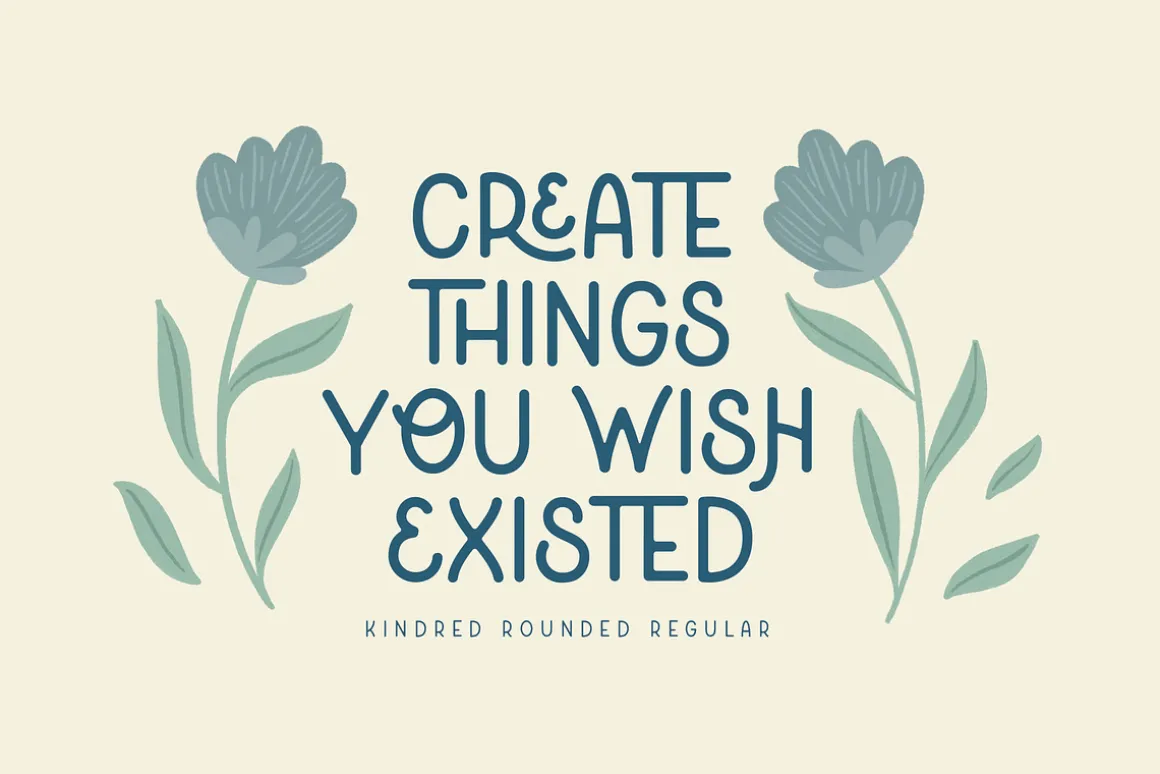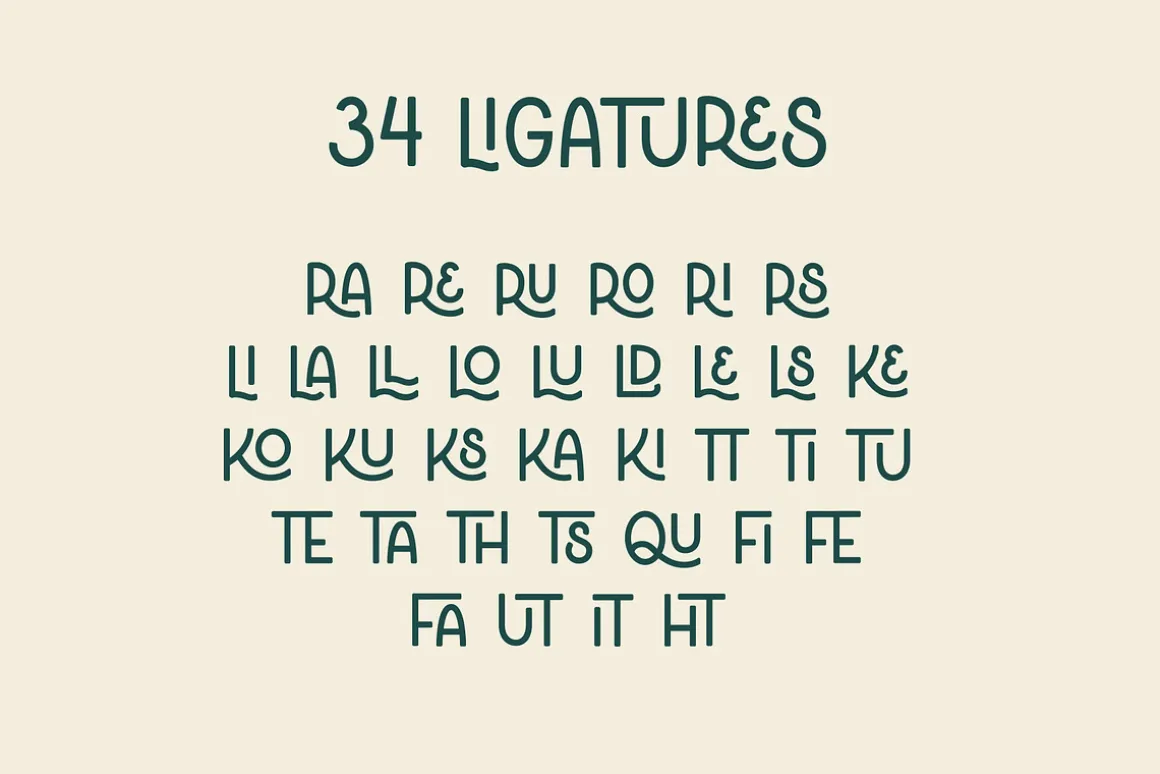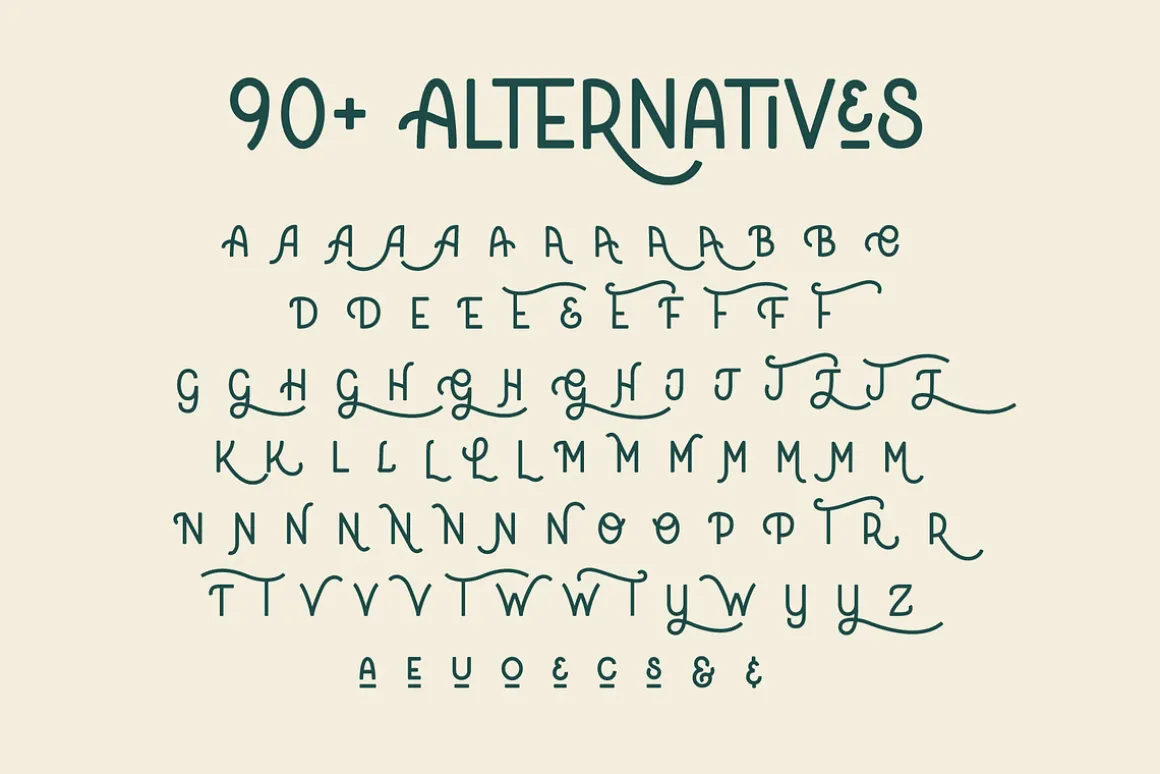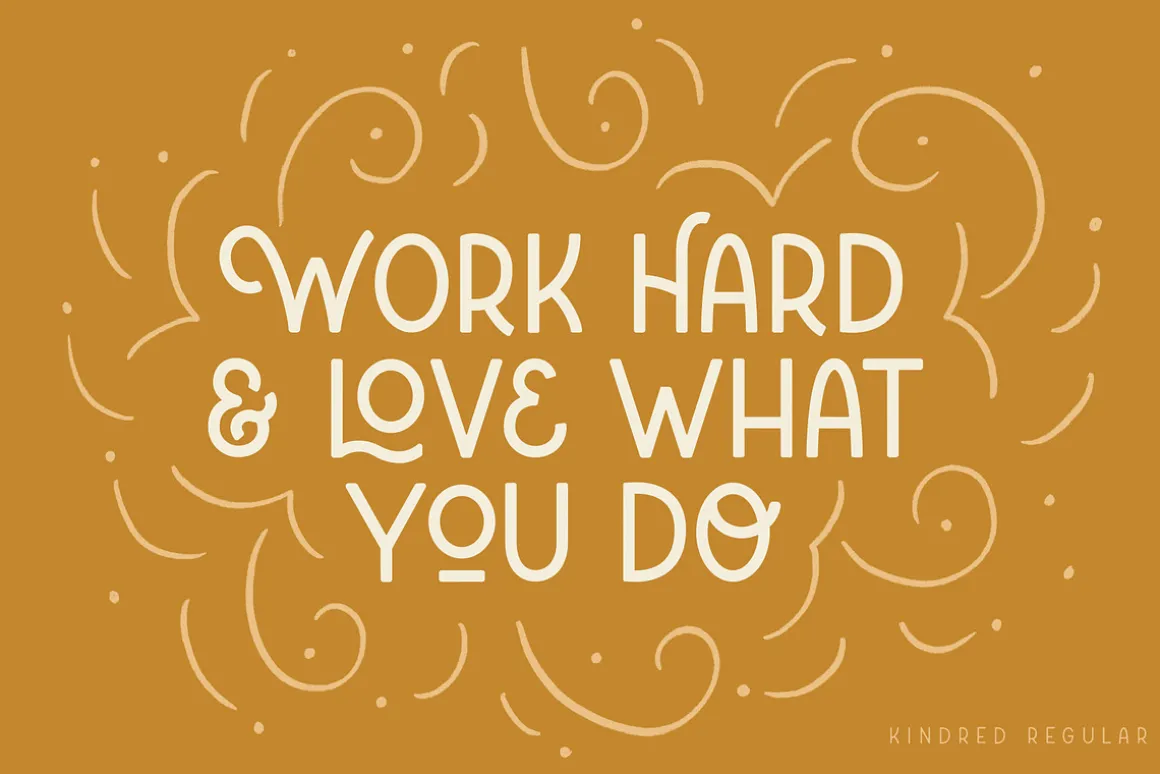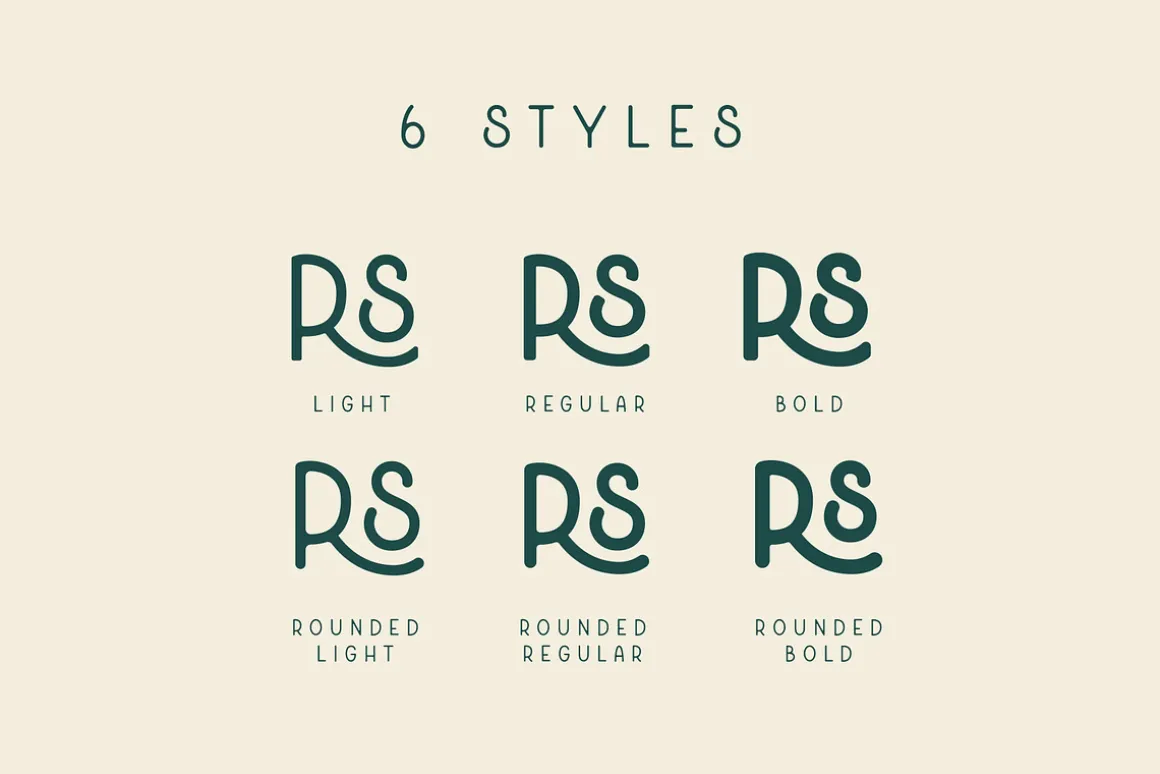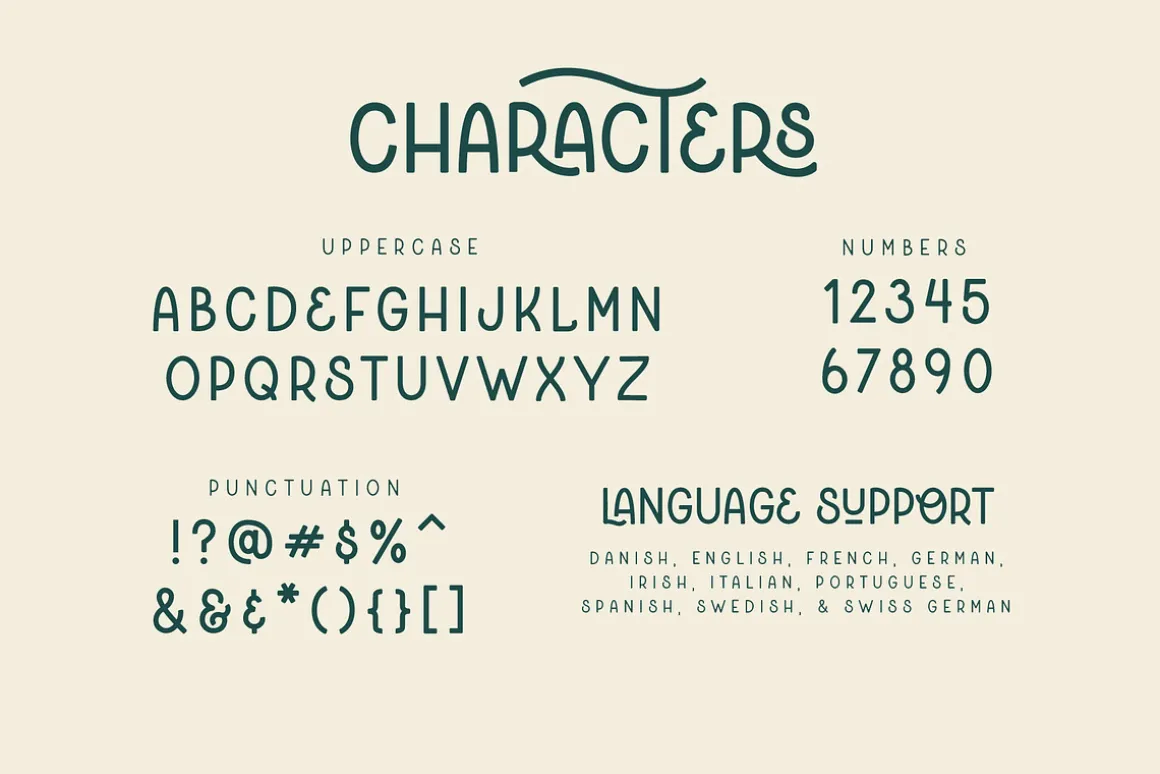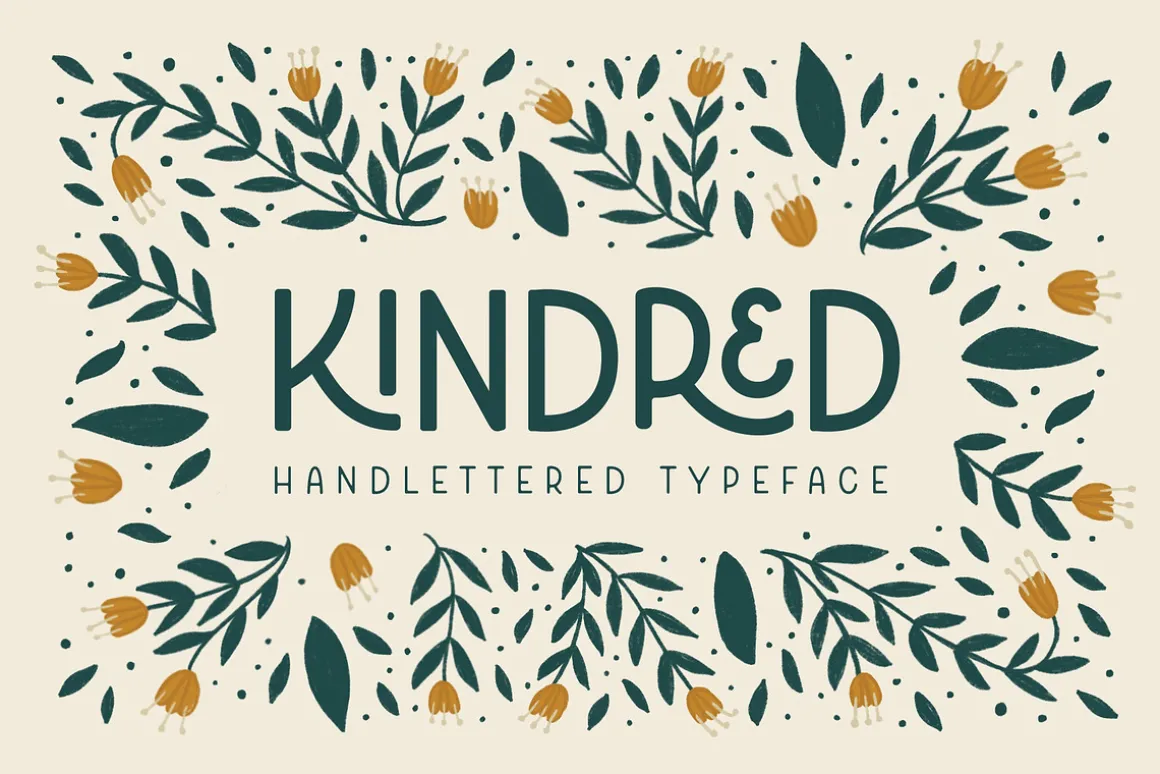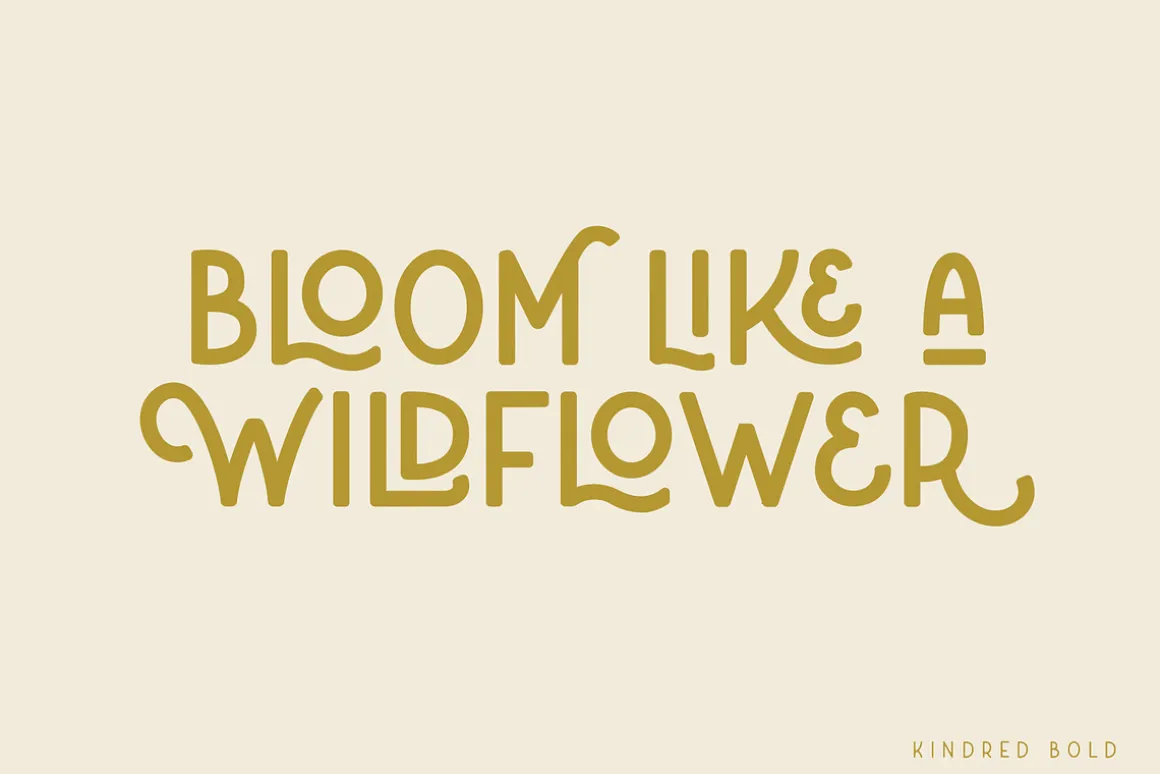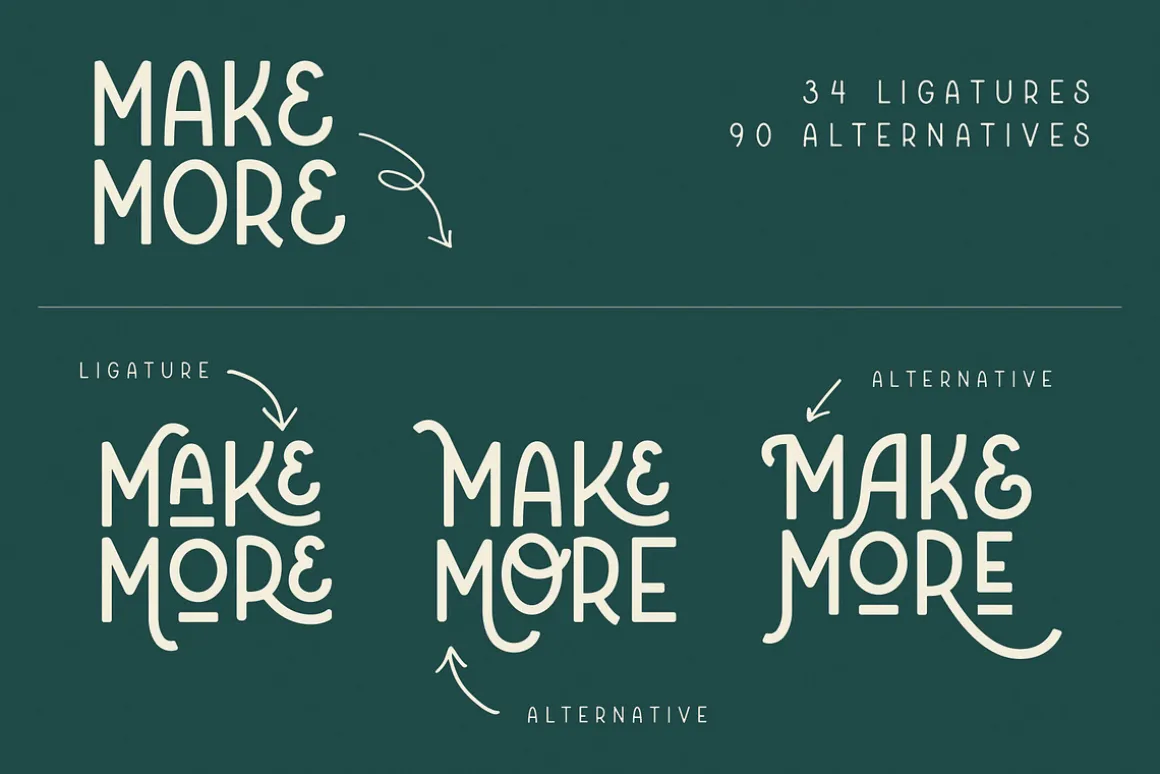
Kindred is an organic and hand-lettered sans typeface. It has a friendly and organic feel that works great for branding, social media, and marketing!
Kindred is inspired by hand lettering art – incorporating many letters that fit into each other and swashes that add a hand-drawn feel. The corners are slightly rounded to give it an organic and friendly feel. With so many alternatives and ligatures, each word can be customized to fit the needs of your project.
- 281 Glyphs: Uppercase, Numbers, Punctuation, Language Support, Alternatives & Ligatures.
- 34 Standard Ligatures: Enabled by default to create a hand-drawn feel! (Make sure your open-type features are enabled!) These can also be switched out depending on the look you’re going for.
- Over 90 Alternatives: These are the perfect way to make the type look custom-made for your project. Add small details, change double letters, or add swatches that fit around surrounding letters.
- 6 Styles:Light, Regular, Bold, Rounded Light, Rounded Regular, & Rounded Bold. Create a unique look by choosing a different style or mix and match different weights in one design.